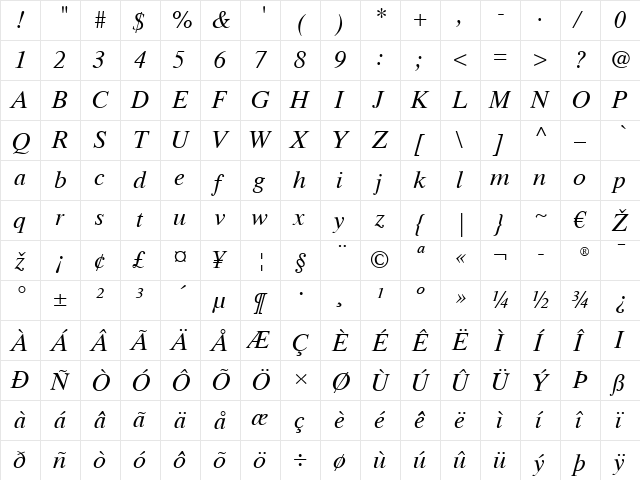
Times Ten CE Roman Italic
Design Context for Times Ten CE Roman Typeface
Times Ten CE Roman is a composed and adaptable typeface that performs quietly and consistently across a wide range of design contexts. The slanted form adds forward momentum and visual energy.
Pro Tip: Try Times Ten CE Roman for annotation and caption copy alongside an upright companion — the contrast in angle creates a dynamic but ordered typographic system.